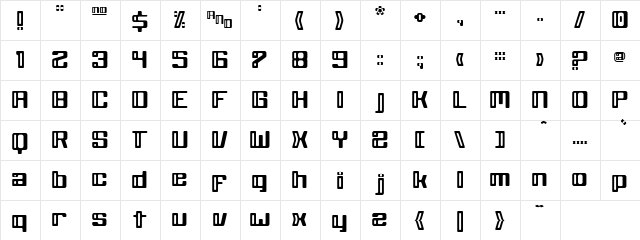
Leuitanant Regular
Design Context for Leuitanant Typeface
Leuitanant offers clean, dependable letterforms without strong stylistic allegiance, making it a practical choice for designers who need flexibility.
Pro Tip: Pair Leuitanant with a font of contrasting weight or personality to build a more expressive typographic hierarchy.